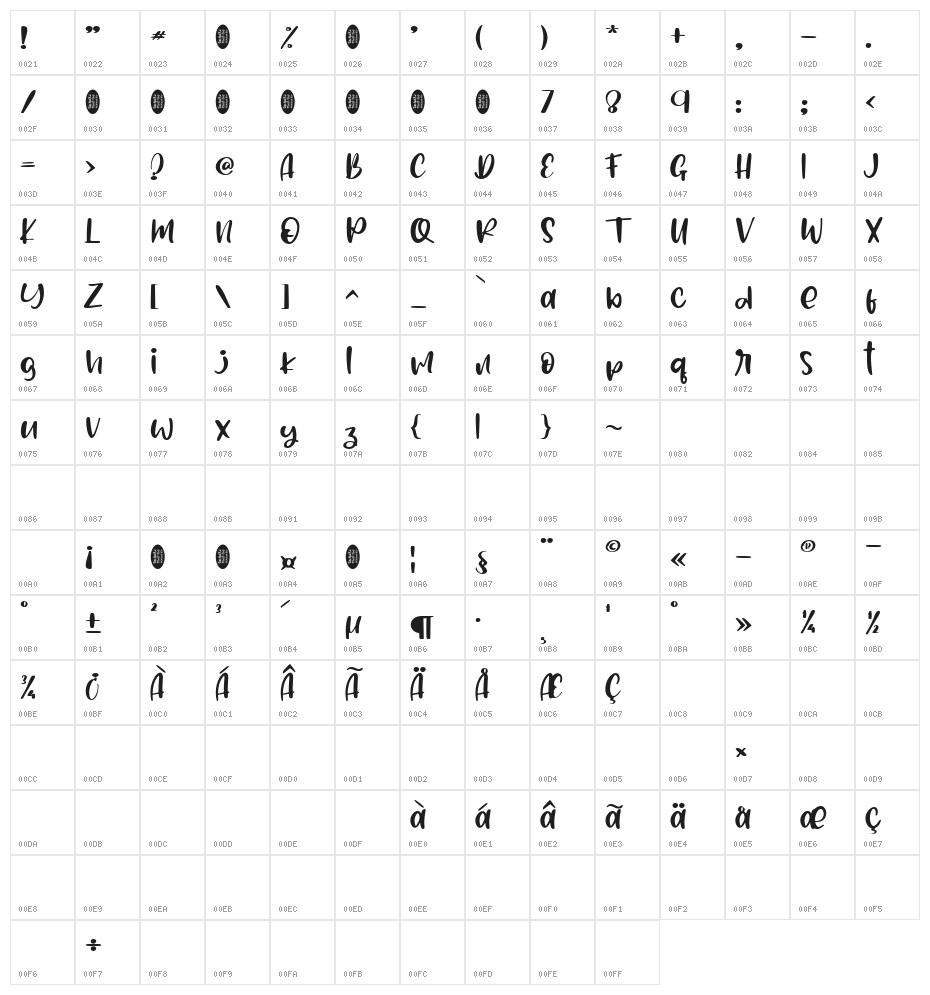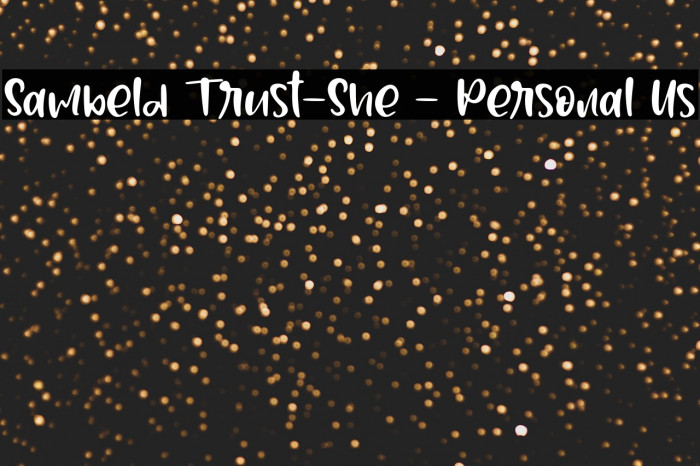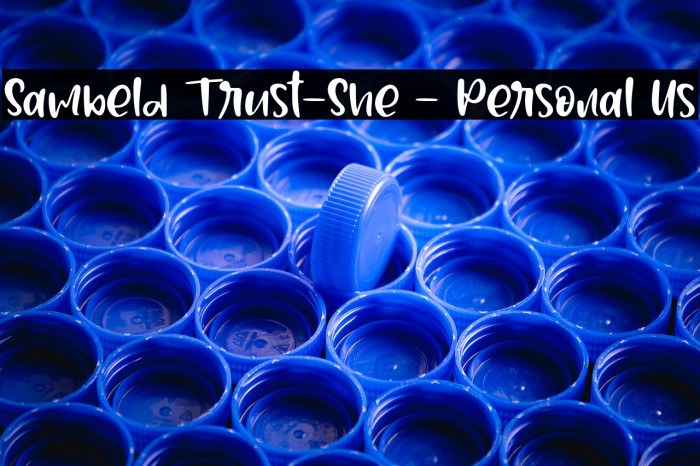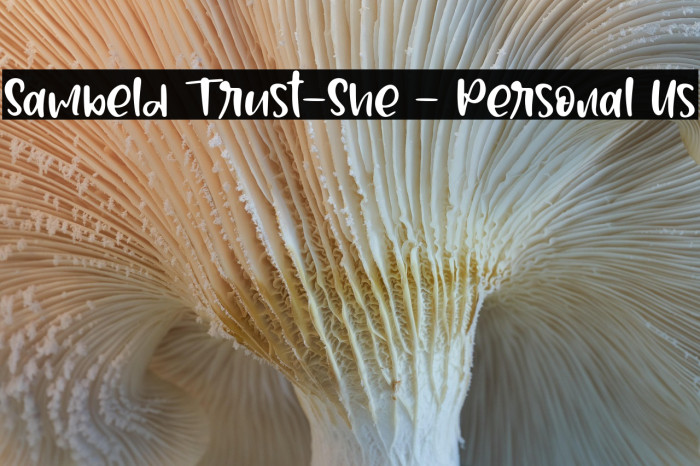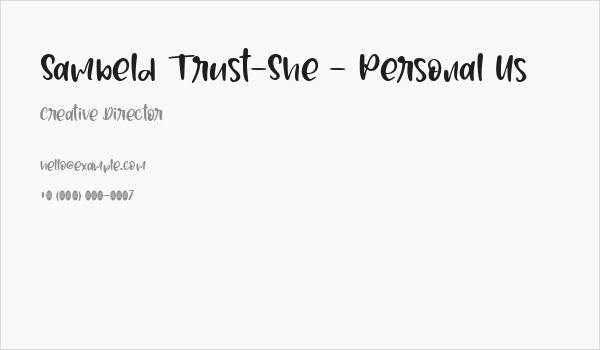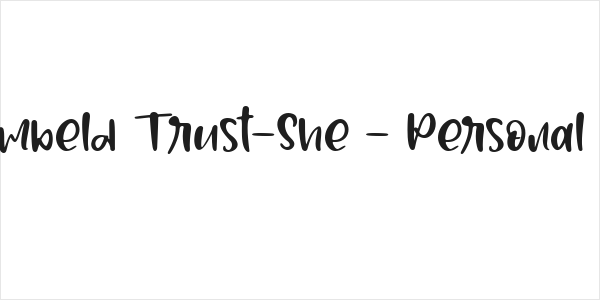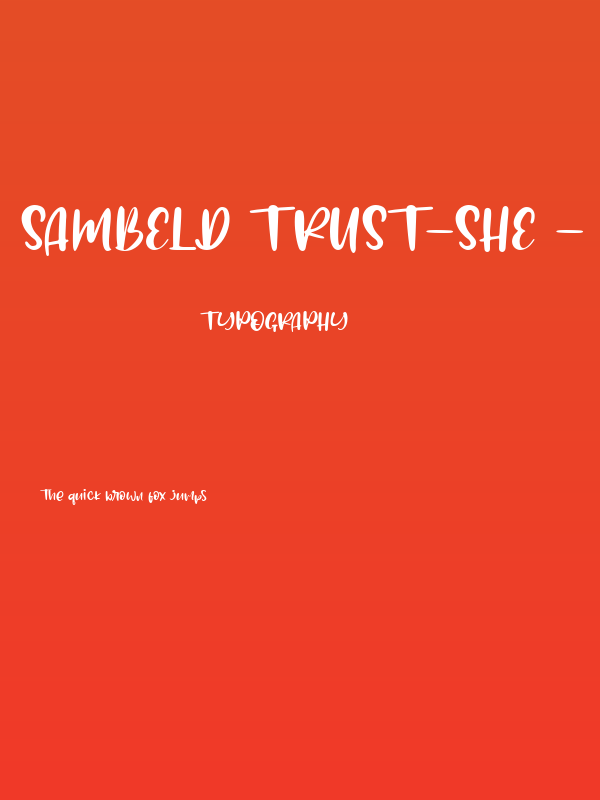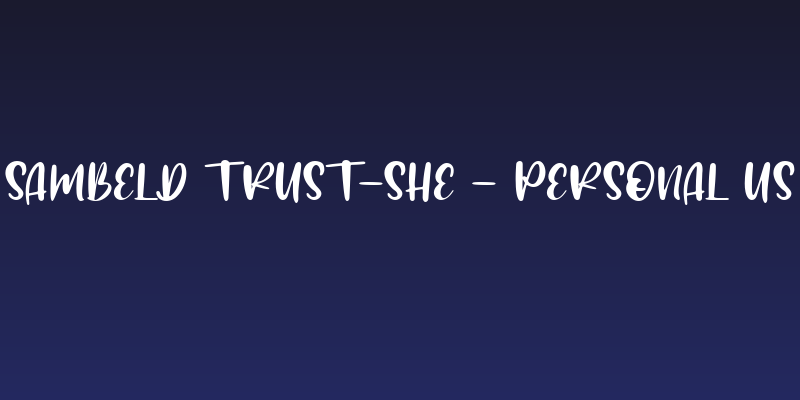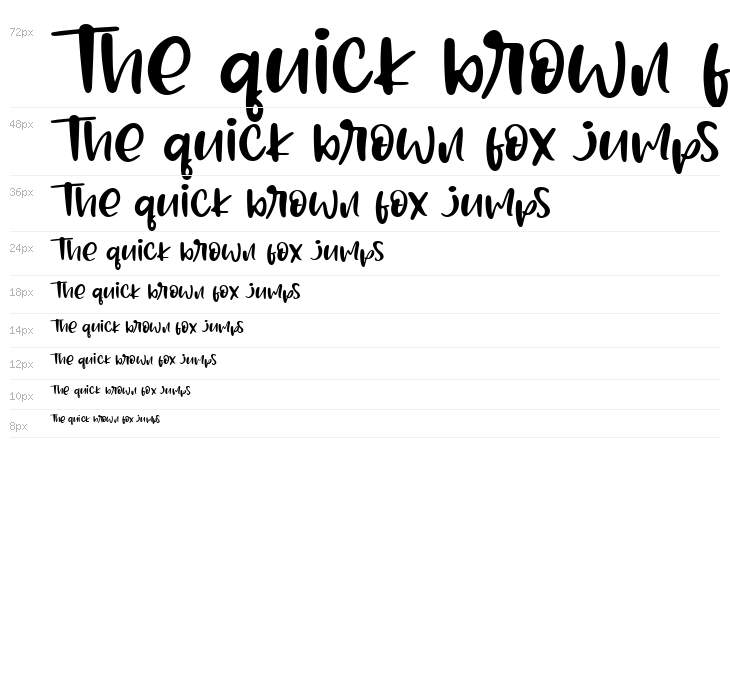
Sambeld Trust-She - Personal Us Font
Sambeld Trust-She - Personal Us Description
This font exhibits a playful and energetic script style with a handwritten appearance. The letters are bold and fluid, featuring a dynamic flow that suggests movement and creativity. The uppercase and lowercase letters maintain a consistent style, with rounded edges and varying stroke widths that add a sense of rhythm and personality. The numerals and special characters are designed to match the lively aesthetic, making them suitable for attention-grabbing designs. The overall look is informal yet stylish, perfect for projects that require a personal touch.
| Proposed Projects | Ideal for greeting cards, invitations, branding, and social media graphics. |